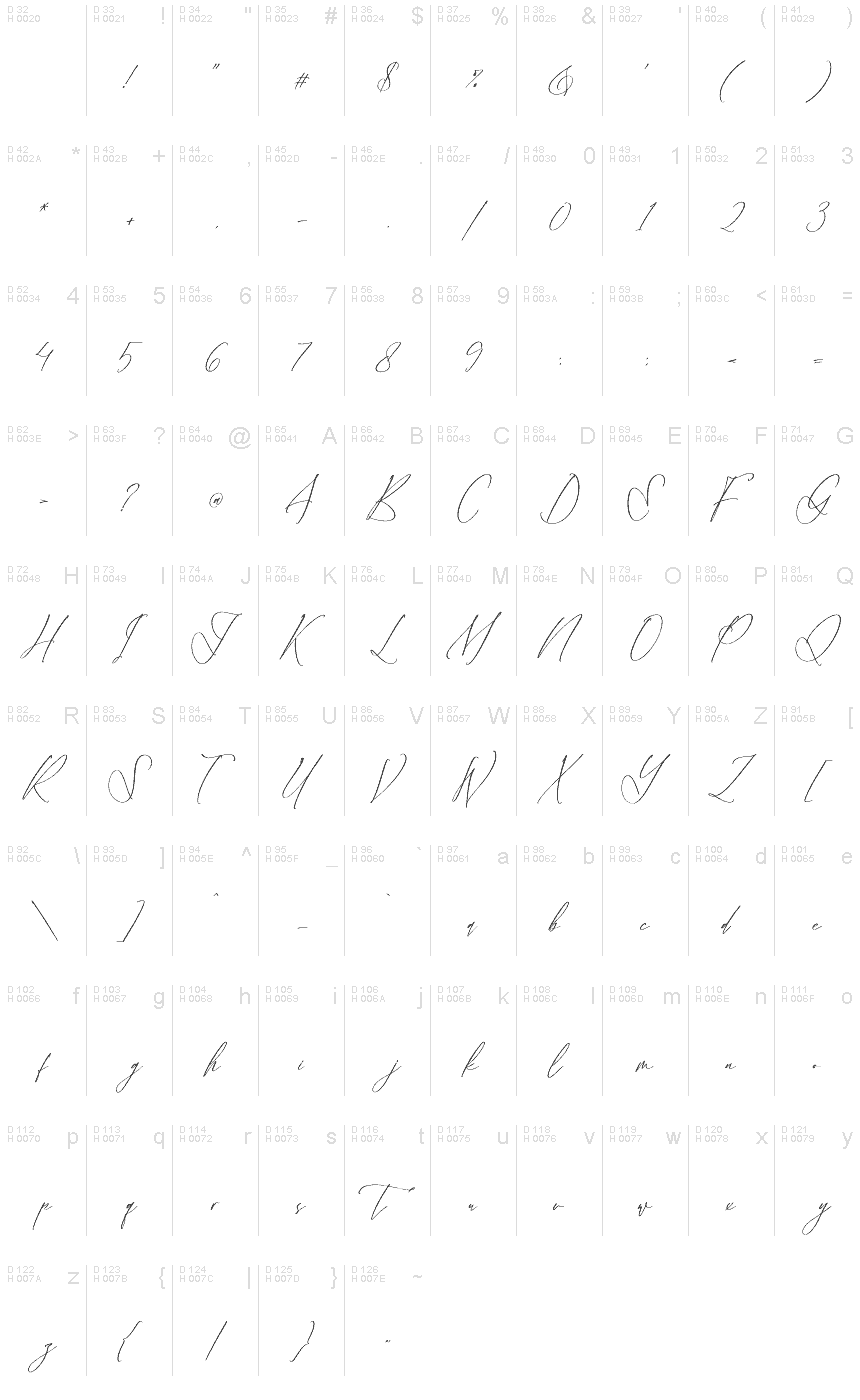
Velodicals Holysmith
Velodicals Holysmith font designed by Storytype Studio is a free handwriting font in a light and condensed style. With its flowing cursive script, it manifests an elegant, modern signature style that produces a refined aesthetic and a professional appearance. The universal set can create unique headers and texts for every branding project.
Room interior magazines, winery commercials, high-end jewelry advertisements, furniture designers’ signatures, and fashion-related labels are only some of the endless uses Velodicals Holysmith font can have. This stylish and light typeface is suitable for cosmetics posters as much as for fancy restaurants or hotel brochures.